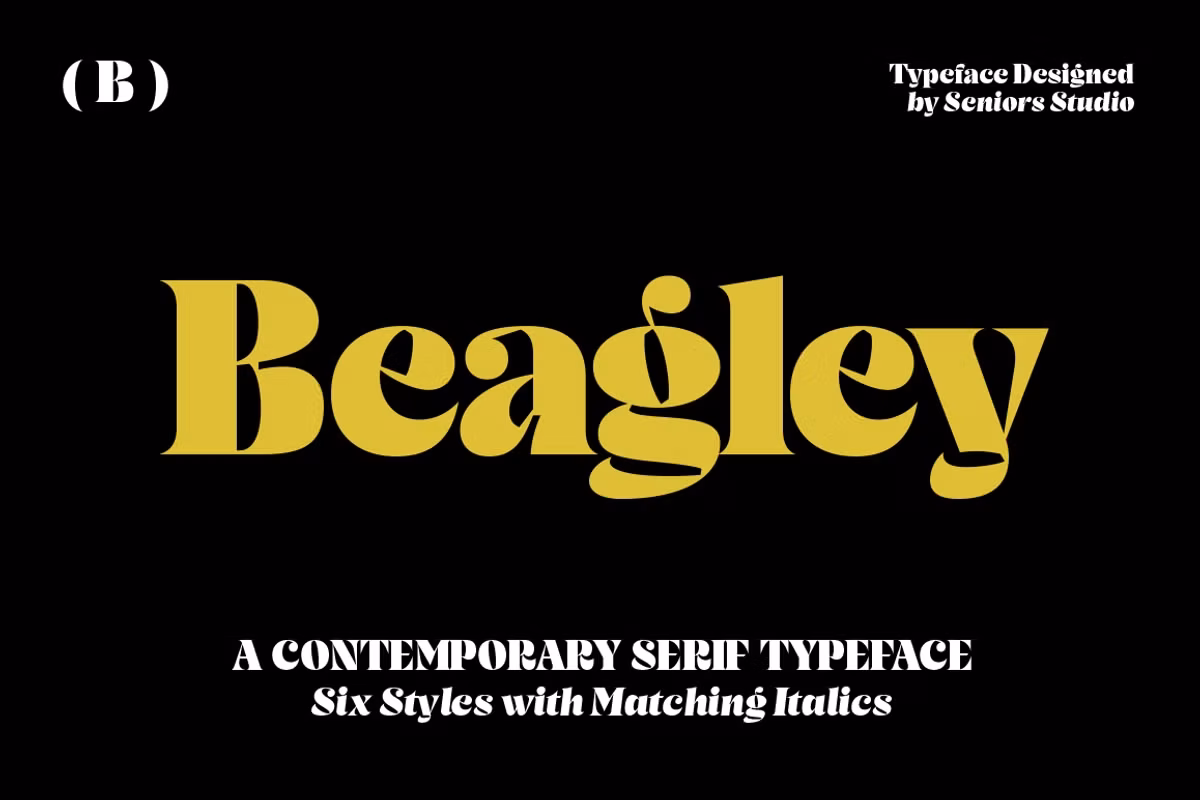
Beagley Display Free Download
Beagley Display Font Free Download
The Beagley Display Font Free Download is a bold and eye-catching typeface designed to make your headlines stand out. With its strong lines, geometric shapes, and modern structure, Beagley is perfect for posters, branding, packaging, sports designs, and editorial layouts that demand attention.
Its unique letterforms combine sharp edges with smooth balance, giving your text a distinctive and powerful presence. The font includes uppercase characters, numbers, punctuation, and multilingual support—making it versatile for a wide range of design applications.